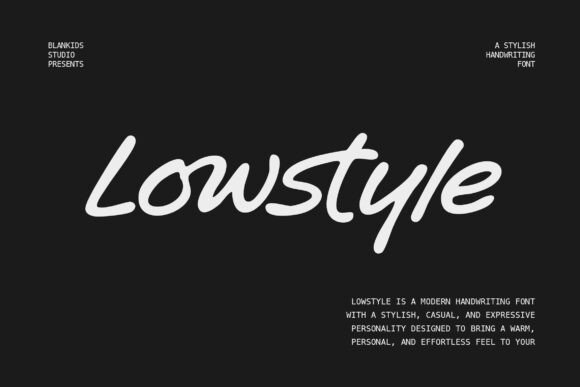
Lowstyle: The Handwriting Font for Human-Centric Design
In a digital landscape often dominated by rigid, geometric typefaces, Lowstyle offers a refreshing alternative that feels distinctly human. This modern handwriting font is designed with a stylish, casual, and expressive personality, making it an ideal choice for creators who want to inject warmth and personality into their work. Unlike standard serif or sans-serif fonts that can sometimes feel cold or impersonal, Lowstyle mimics the natural flow of a pen on paper while maintaining excellent readability.
Whether you are a small business owner crafting a brand identity, a blogger looking to connect more deeply with your audience, or a designer seeking a versatile script for a commercial project, this typeface bridges the gap between professional polish and personal touch. Its smooth flowing strokes create an effortless feel that instantly makes designs look lively and relatable.
Why Lowstyle Stands Out in Modern Typography
The primary purpose of Lowstyle โ Stylish Handwriting Font is to bring a sense of authenticity to visual communication. In an era where consumers are increasingly skeptical of overly polished, corporate-looking content, there is a growing demand for design that feels genuine. This font blends friendly, trendy, and modern script aesthetics into one versatile typeface that solves the common problem of "design fatigue."
Many designers struggle to find scripts that are both legible and stylish. Traditional cursive fonts often sacrifice readability for flair, making them difficult to use for anything other than short headlines. Lowstyle avoids this pitfall by balancing artistic expression with functional clarity. The characters are crafted to mimic natural handwriting without the chaos of messy penmanship. This ensures that your message remains clear while still carrying the emotional weight of a personal note.
- Expressive Personality: The font carries a tone that is approachable and inviting, perfect for brands that want to sound like a friend rather than a corporation.
- Smooth Flow: The strokes connect naturally, creating a rhythm that guides the eye smoothly across the page or screen.
- High Readability: Despite its handwritten appearance, the letterforms are distinct enough to be read easily at various sizes.
Practical Applications for Creators and Businesses
One of the most appealing aspects of Lowstyle is its versatility. It is not limited to niche creative projects; it has found a strong foothold in commercial and professional contexts as well. If you are wondering where this font fits into your workflow, consider how it can transform specific elements of your design.
For entrepreneurs and small business owners, branding is everything. Using Lowstyle in a logo or on packaging can signal that your product is handmade, artisanal, or crafted with care. A coffee shop might use it for its menu board to evoke the feeling of a cozy neighborhood spot. A bakery could apply it to cupcake wrappers to suggest homemade quality. The font's warm aesthetic helps customers feel an immediate emotional connection to the brand.
Bloggers and content creators often seek ways to stand out in crowded feeds. Incorporating Lowstyle into social media graphics, YouTube thumbnails, or blog headers can break up the monotony of standard text blocks. It adds a layer of intimacy that encourages readers to stop scrolling and engage with the content. For instance, using the font for pull quotes or key takeaways within an article can highlight important points while adding visual interest.
Educators and freelancers also benefit from its accessible nature. Teachers might use it for worksheets or certificates to make learning materials feel less formal and more encouraging. Freelance illustrators can pair it with their artwork to create a cohesive style that feels organic and unforced.
How to Use Lowstyle Effectively
While Lowstyle is incredibly flexible, getting the best results requires a thoughtful approach to layout and hierarchy. Because it is a display font with a strong character, it works best when used strategically rather than overused.
- Pairing is Key: To maximize impact, pair Lowstyle with a clean, neutral sans-serif font. The simplicity of a geometric sans-serif will provide a stable foundation that allows the elegance of Lowstyle to shine without competing for attention.
- Use for Impact: Reserve the font for headlines, titles, logos, and short phrases. Avoid setting long paragraphs of body text in Lowstyle, as even though it is readable, extended reading in a script font can cause eye strain.
- Consider Context: Think about the mood you want to convey. If you are designing for a high-tech startup, Lowstyle might feel too casual unless you are aiming for a very specific, disruptive brand voice. However, for lifestyle, wellness, fashion, or food industries, it is often a perfect match.
As you explore your design options, remember that typography is more than just words on a page; it is the voice of your brand. Lowstyle offers a voice that is friendly, modern, and undeniably human. By incorporating this font into your toolkit, you open up new possibilities for creating designs that resonate deeply with your audience and leave a lasting impression.